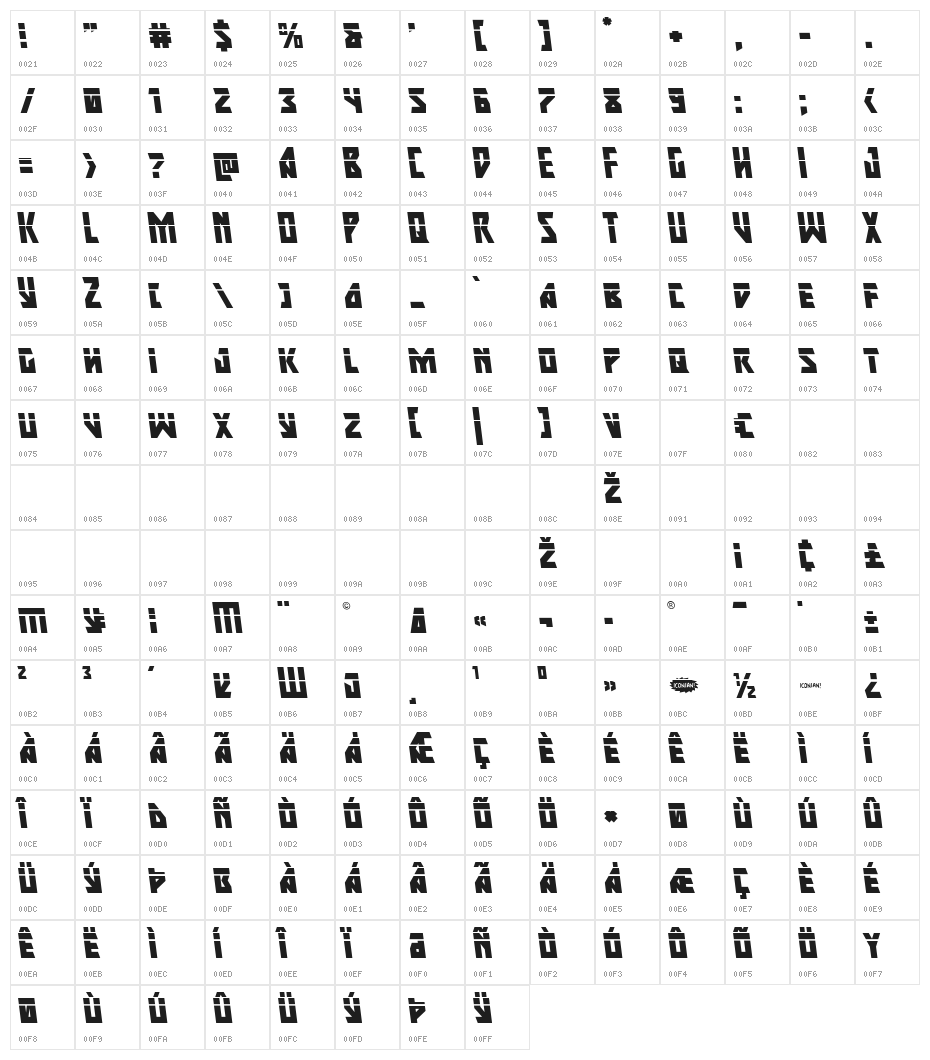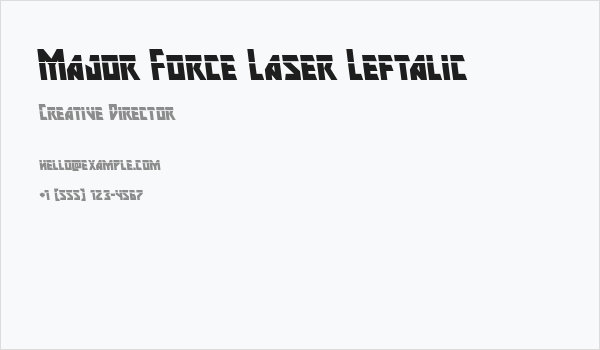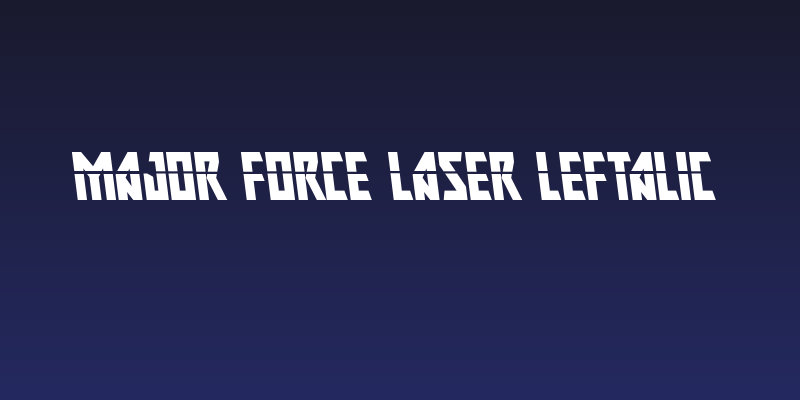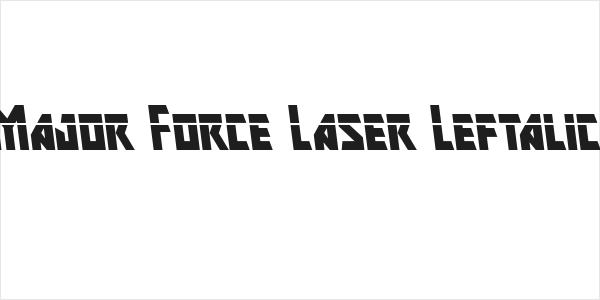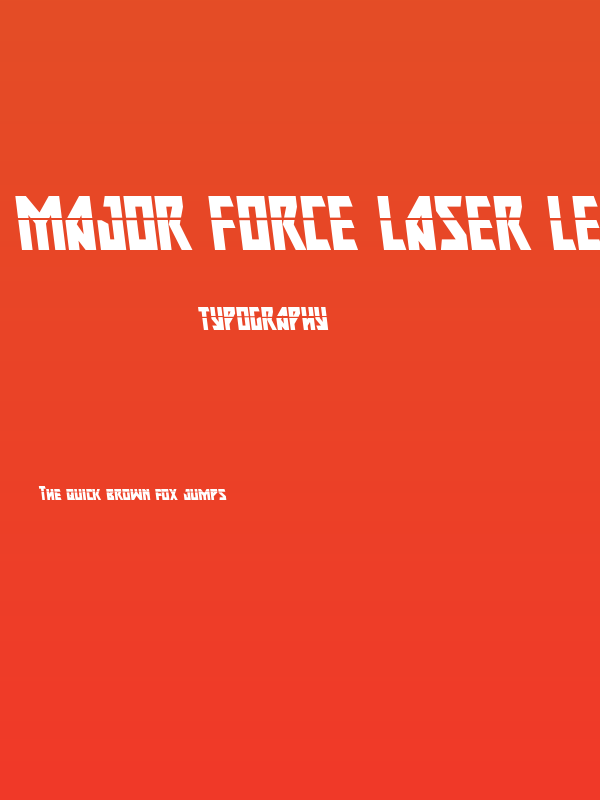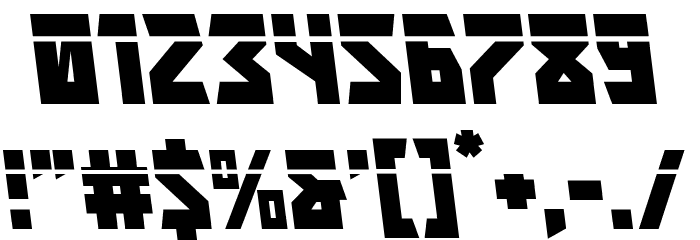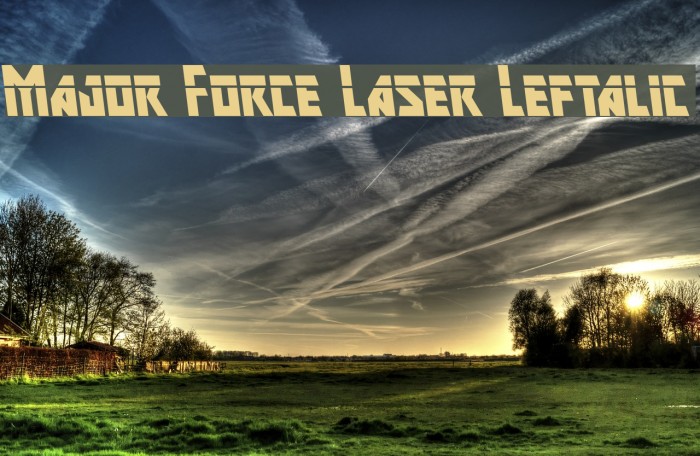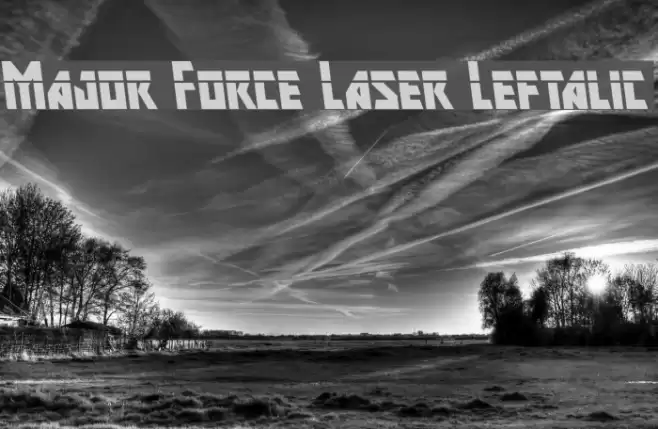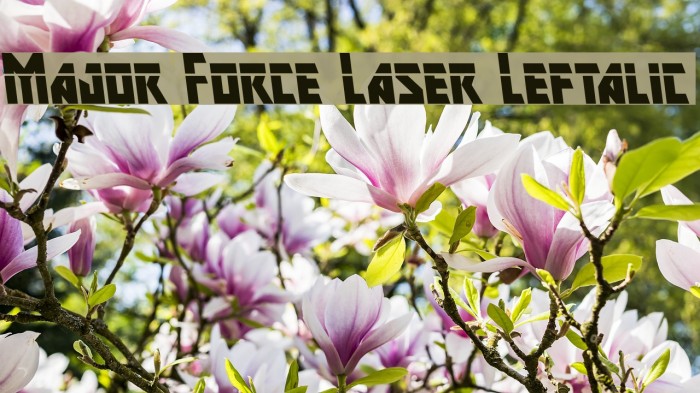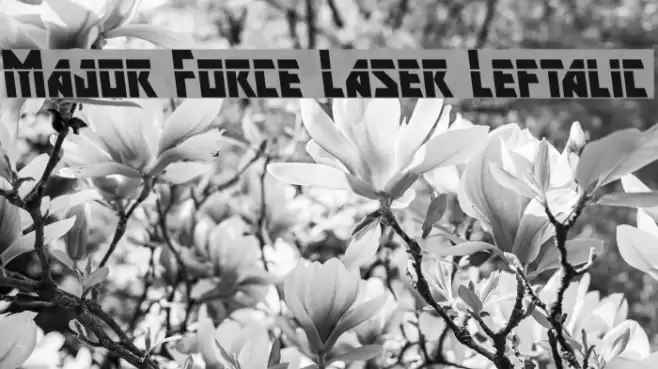
Major Force Laser Leftalic Font
This font features a bold, angular design with a futuristic and geometric aesthetic. The characters are constructed with sharp edges and diagonal cuts, giving them a dynamic and aggressive appearance. The uppercase and lowercase letters maintain a consistent style, with a strong emphasis on horizontal and vertical lines. Numbers and special characters are designed to match the boldness and angularity of the alphabet, ensuring a cohesive look across all glyphs. The font's unique style makes it stand out, ideal for projects that require a modern and edgy feel.
| Proposed Projects | Ideal for sci-fi themed projects, video game titles, tech branding, and futuristic posters. |